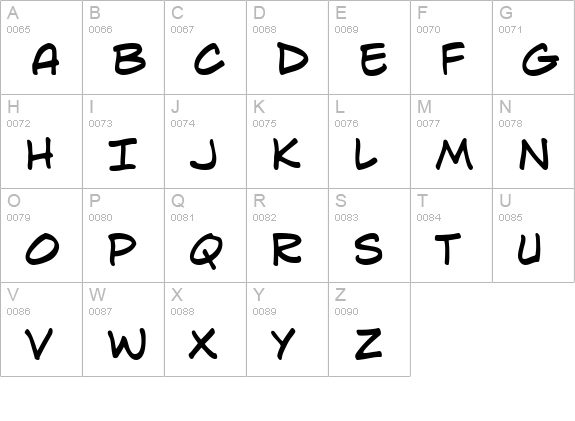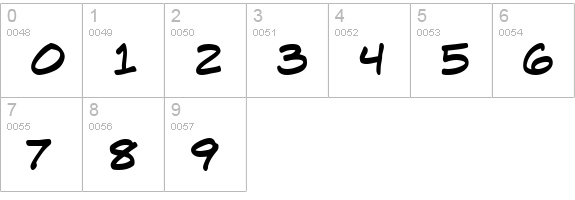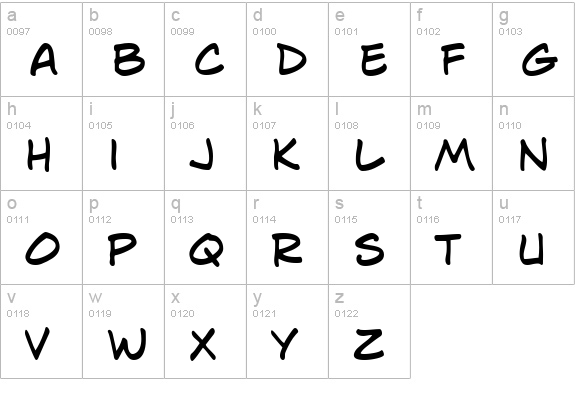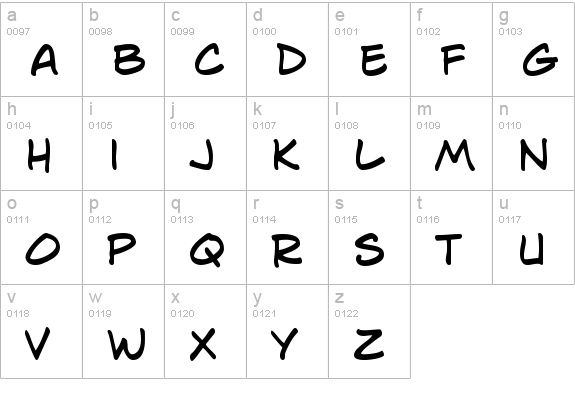
Lint McCree BB font is a stylish and modern typeface that exudes a sense of creativity and elegance. With its clean lines and bold lettering, this font is perfect for adding a touch of sophistication to any design project. Whether you are creating a logo, poster, or website, Lint McCree BB font will make your text stand out and grab attention. What makes this font even better is that it is completely free to download. You can easily access Lint McCree BB font at FontsMarket.com and start using it in your projects right away. Don't miss out on this amazing opportunity to enhance your designs with a high-quality font that is both eye-catching and professional. Download Lint McCree BB font today and take your creations to the next level!